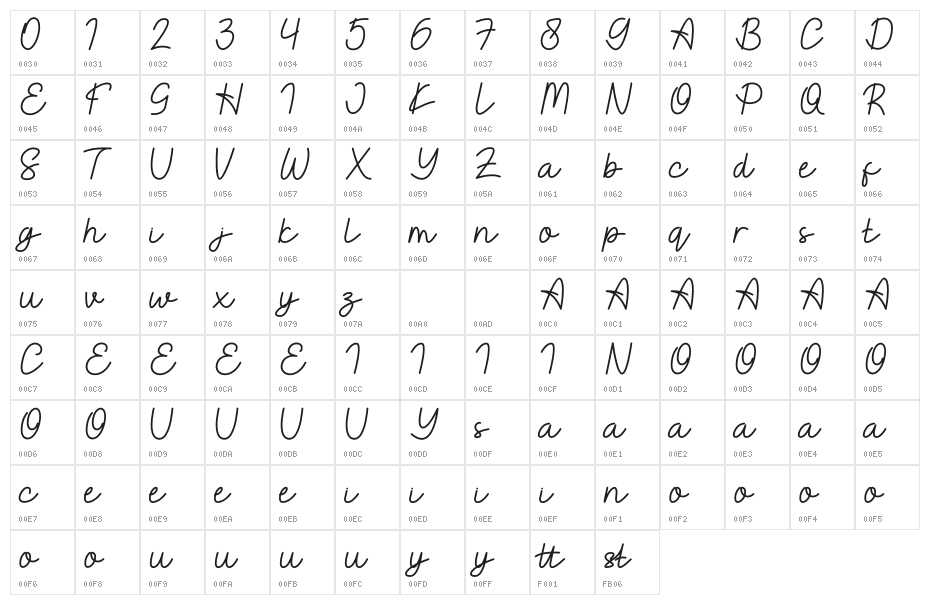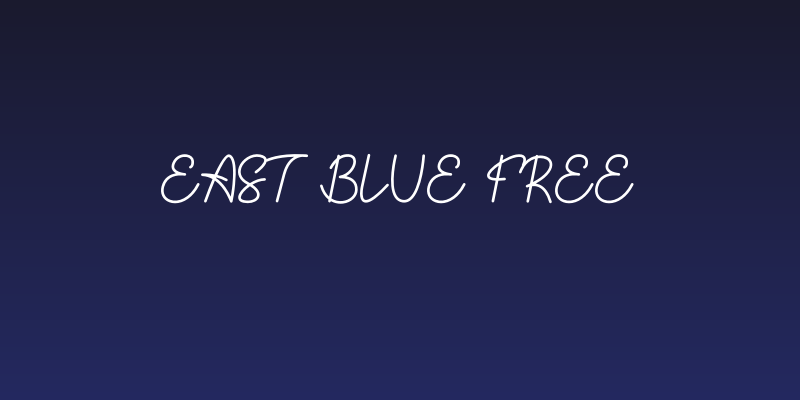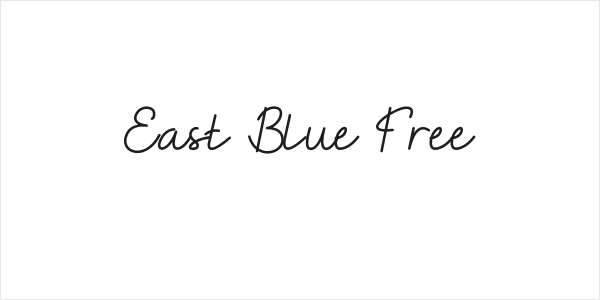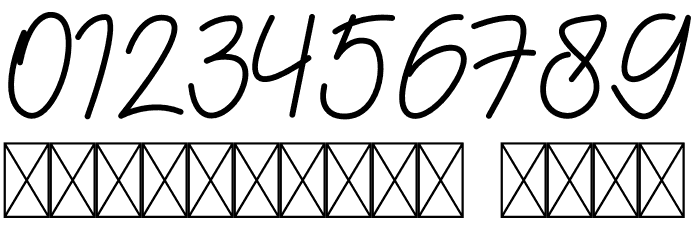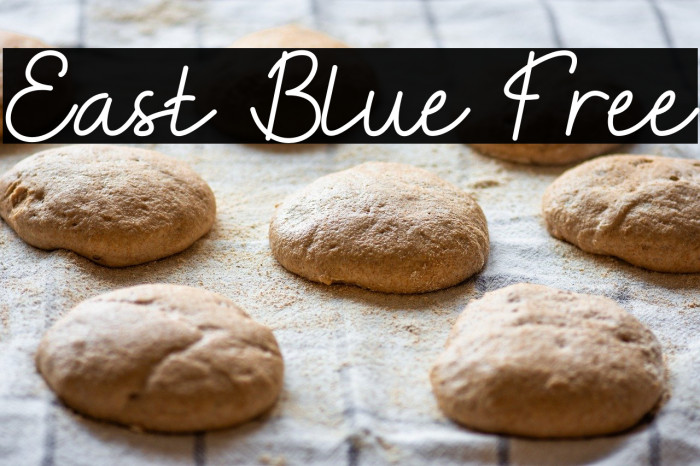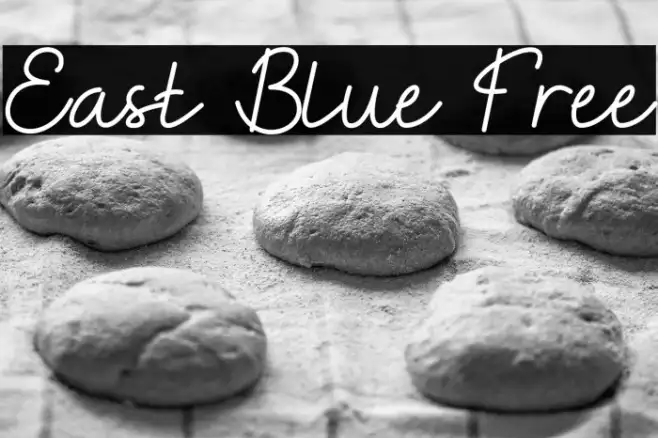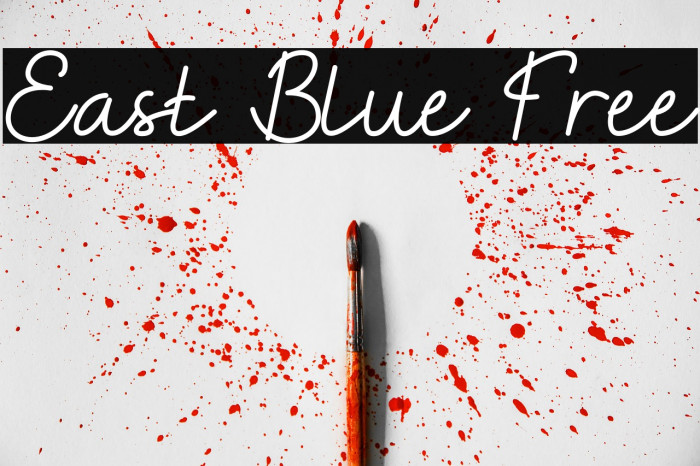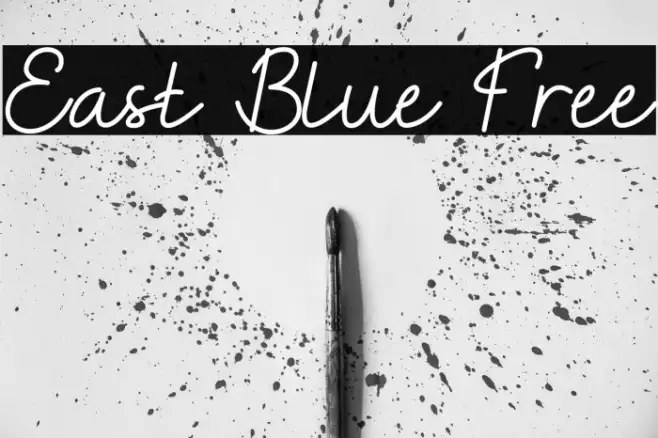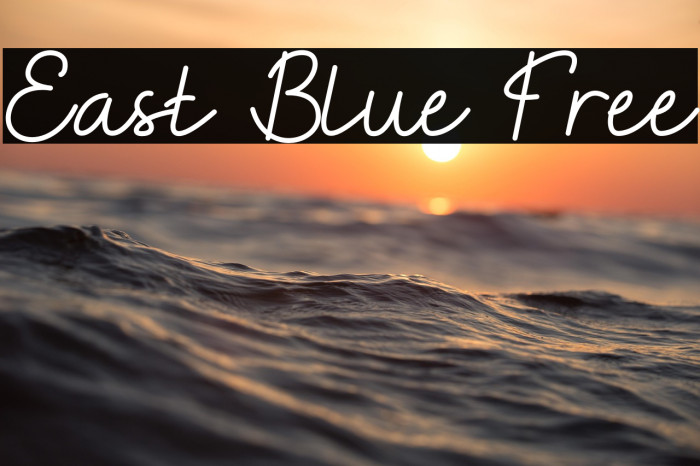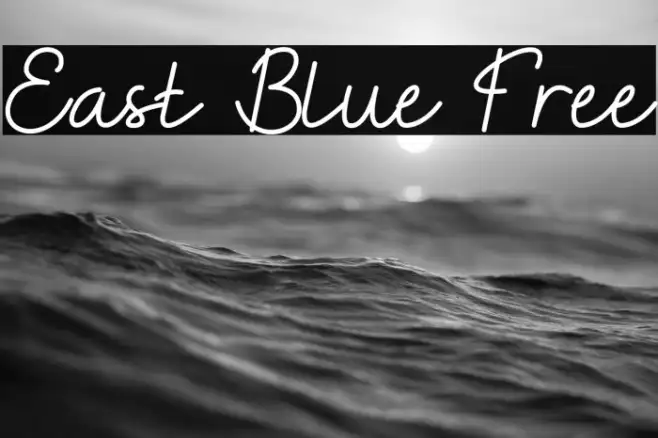
East Blue Free Font
East Blue Free Description
This font features a casual, handwritten style with a smooth and flowing script. The uppercase letters are slightly larger and more pronounced, while the lowercase letters maintain a consistent, connected appearance, enhancing the cursive feel. The numerals are clear and legible, matching the overall aesthetic. Special characters are included, maintaining the same fluidity and style. The font's design is approachable and friendly, making it suitable for various creative applications. Its informal yet elegant look is perfect for projects that require a personal touch.
| Use Case | Logos, Invitations, Social Media |
| Proposed Projects | Ideal for greeting cards, invitations, personal branding, and social media graphics. |